You never know when an instance might pop up when you need to use some handwritten fonts in your productions… maybe a note Mocha-tracked to a fridge? Or possibly replacing the chalk text on a chalkboard? All of them are free to download so go nuts!
Kraboudja
Caitlyn
Scribulous Scrawlin’
Aleia
Skinny Black
Tommy’s First Alphabet
Oilhand
People Are People
Nymphont
Hans Hand
Big Mister C
Sexy Sara
As I Lay Dying
Scratch Kit
Love Moi
Lovitz
Salamander
Acki Preschool
Gorillaz
Note This!
Like Giselle?
Kids First Print Font
Mskitokilla
Cat’s Awesomely Awesome Font
Simpsons
Luna
J.D. Handcrafted
Ah the monster is comming
Julies
Eltops
Honey I Stole Your Jumper
Harrison
Joe Hand
Ma Sexy
Promised Freedom
Hannahs Messy Handwriting
Jules Hand
Curly Joe
Ashley
Ammy’s Handwriting
Popstar Autograph
Cutie Pop
Burst My Bubble
Christopher Hand
Two Turtle Doves
Designer Notes
Dali
Journal
Sketch Rockwell
Jellyka – Estrya’s Handwriting
Sweetie Pie
Imitation
Hand of Sean
Aerofoil
Rickman Script
Brook 23
Penciledinh
Sgt. Portfolio
Analgesics
Later On
Soylent Black
Arthritical
le Grand Saut
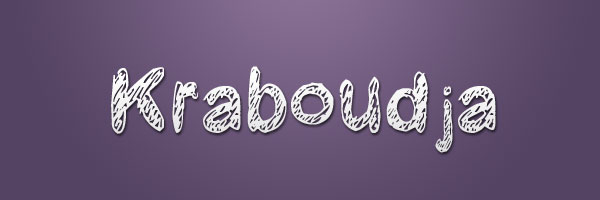
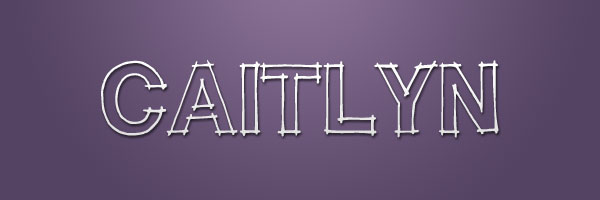
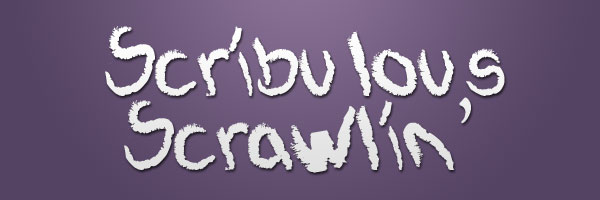
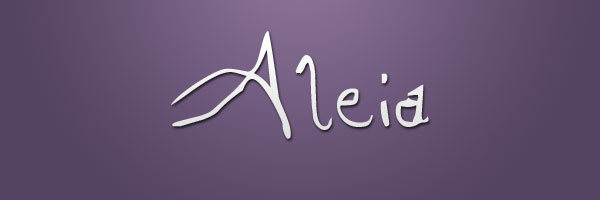
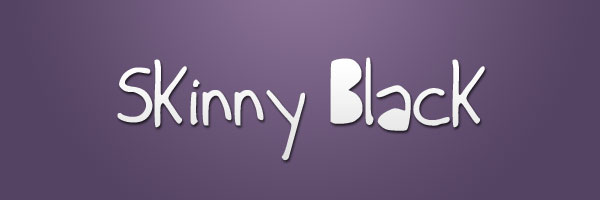
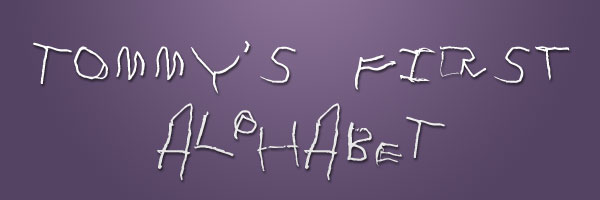
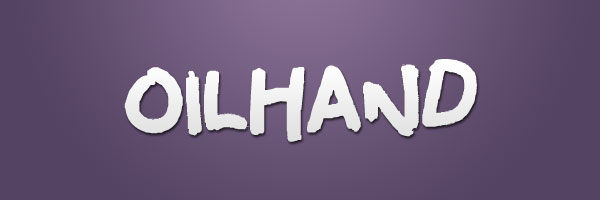
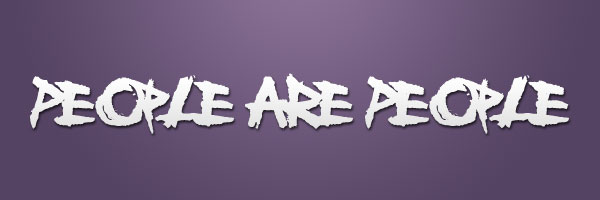
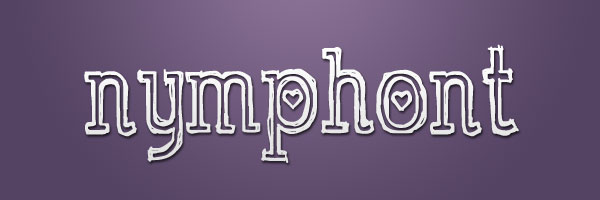
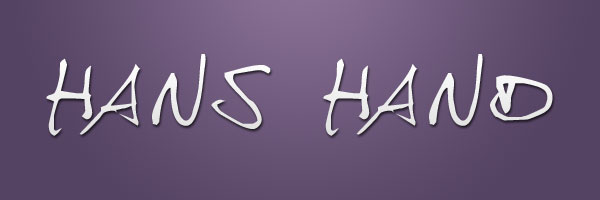
I like some of these fonts. But, I think the thing that I like the most is the purple background you used to showcase them! I love how you guys spare no effort in your presentation, even of something as simple as fonts!